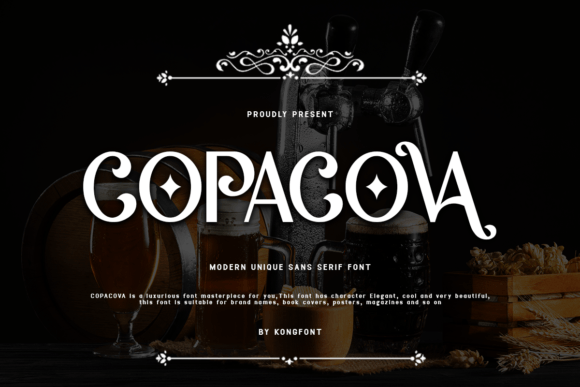
Copacova Font: Elevate Your Designs with a Modern Sans Serif Font
In the world of typography, fonts play a crucial role in defining the visual identity of a brand or creative project. With countless options available, finding the perfect font that combines style, versatility, and uniqueness can be a daunting task. However, if you’re looking for a modern sans serif font that stands out from the crowd, look no further than Copacova Font. This distinctive font is designed to elevate your designs with its clean design, sharp edges, and smooth curves, making it perfect for a wide range of creative projects.
Distinctive Character and Clean Design
Copacova is a modern sans serif font that boasts a unique character and clean design. Its blend of sharp edges and smooth curves creates a visually appealing look that is both stylish and versatile. The font’s contemporary style and strong visual presence make it ideal for designers looking to create impactful and memorable designs. Whether you’re working on branding, logos, editorial design, packaging, or web design, Copacova is the perfect choice.
Endless Creative Possibilities
Copacova offers endless creative possibilities for designers and artists. Here are some ideas to get you started:
- Branding: Use Copacova to create a strong visual identity for your brand. Its modern style and distinctive character make it perfect for logos, business cards, and other marketing materials.
- Logos: Create a memorable logo with Copacova’s unique blend of sharp edges and smooth curves. The font’s versatility ensures that it will work well in a variety of contexts.
- Editorial Design: Use Copacova to add a touch of elegance to your editorial designs, such as magazines, newspapers, and books.
- Packaging: Make your packaging designs stand out with Copacova’s modern style and strong visual presence.
- Web Design: Use Copacova to create a visually appealing website that reflects your brand’s personality.
Why Choose Copacova Font?
Copacova offers a range of benefits that make it an ideal choice for designers and artists. Here are some of the key advantages of using Copacova:
- Unique Character: Copacova’s distinctive character sets it apart from other sans serif fonts.
- Versatility: The font’s versatility ensures that it will work well in a variety of contexts, from branding to web design.
- Modern Style: Copacova’s modern style ensures that your designs will look contemporary and fresh.
- Elegance: The font’s elegant curves and lines add a touch of sophistication to your designs.
Technical Details
In conclusion, Copacova Font is a modern sans serif font that offers a unique blend of style, versatility, and elegance. Its distinctive character, clean design, and strong visual presence make it perfect for a wide range of creative projects. Whether you’re a designer, artist, or entrepreneur, Copacova is the perfect choice for anyone looking to elevate their designs and create a lasting impression.